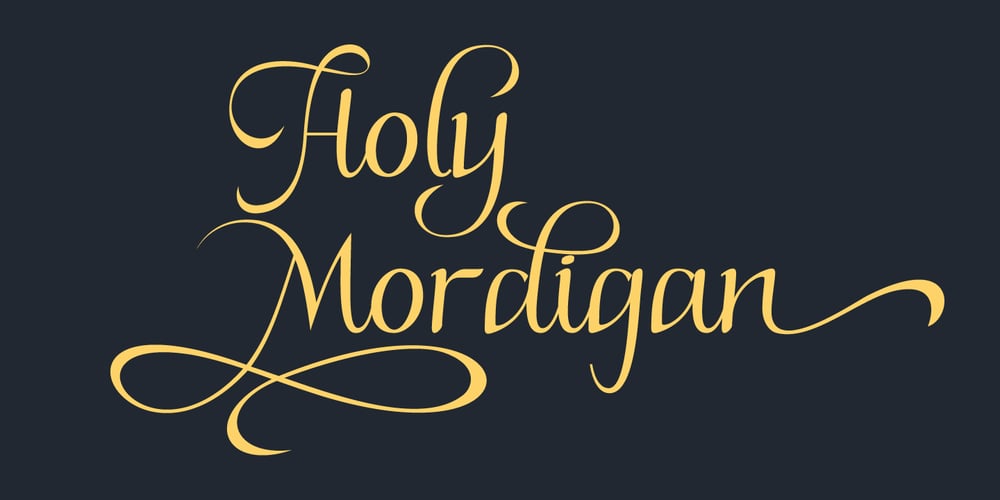
Holy Mordigan Font Family was designed by Riska Kurniawan and published by BlackLotus. Holy Mordigan contains 1 styles and family package options. Holy Mordigan is a modern script font that is inspired by luxury. Holy Mordigan font makes every design created has an elegant aura. so it has its own value for everyone who sees it.Holy Mordigan also has a variety of alternate options that can be used.What’s included in this font pack :– LARGE GLYPH SETS : There are 409 total glyphs in this font pack. Holy Mordigan comes with a large range of glyphs including punctuation, numerals, international language support, ligatures & additional extra glyphs for stylistic sets. It includes 182 Glyphs of Stylistic Sets to make your text looks natural and beautiful.– NO SPECIAL SOFTWARE REQUIRED– INTERNATIONAL LANGUAGE SUPPORT : This font supports English, French, Italian, Spanish, Portuguese, German, Swedish, Norweigen, Danish, Dutch, Finnish, Indonesian, Malay.